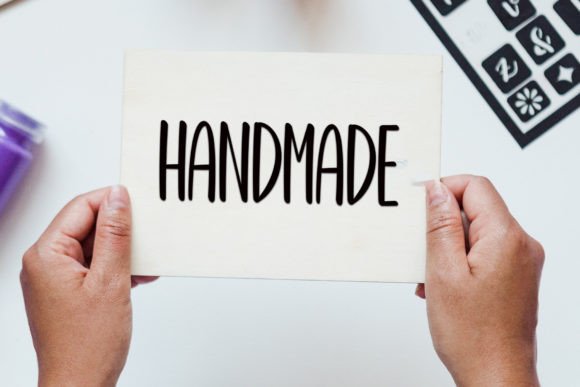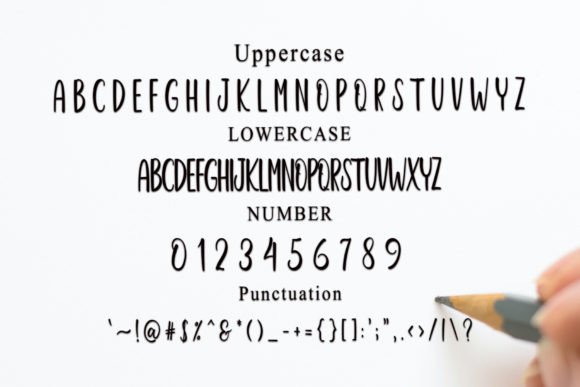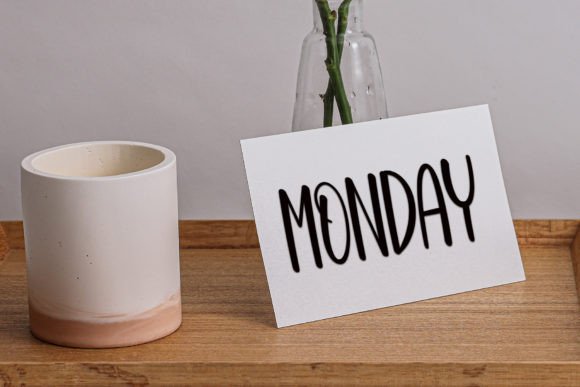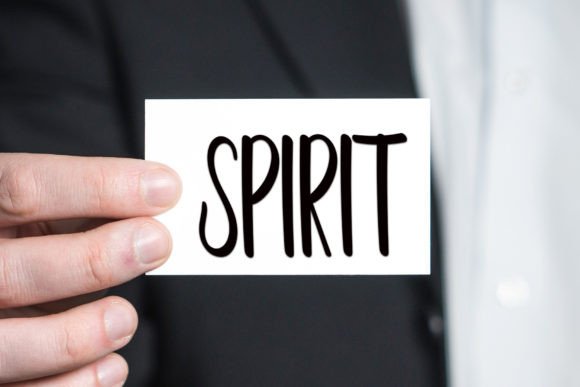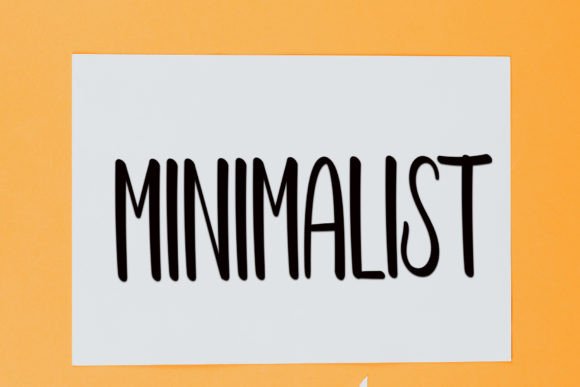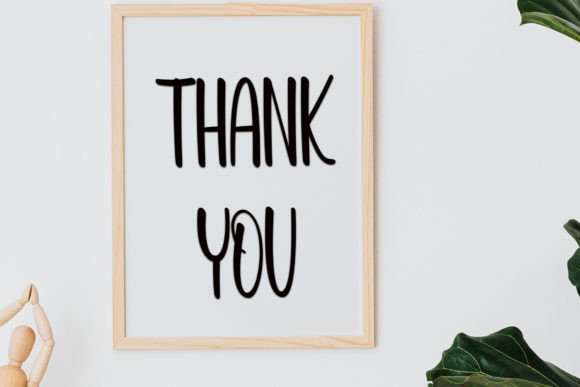
The Ultimate Creative Planner Font Guide: Elevate Your Designs with a Cool, Simple, and Playful Handwritten Font
I’ll never forget the moment I stumbled upon the Creative Planner font. I was working on a project for a client who wanted a playful yet sophisticated look, and I was struggling to find the perfect font. That’s when I discovered Creative Planner – a cool, simple, and playful handwritten font that instantly elevated my design to the next level. In this article, I’ll share my experience with this incredible font, its features, and how to make the most of it in your designs.
An Honest Review of Creative Planner Font
What I Love About Creative Planner Font ✨
- ✅ Versatility: This font is incredibly versatile and fits a wide pool of designs, from playful crafts to sophisticated branding projects.
- ✅ Readability: The font is easy to read, even in small sizes, making it perfect for body text or headings.
- ✅ Unique Character: The font has a unique character that sets it apart from other handwritten fonts, making your designs stand out.
- ✅ Easy to Pair: Creative Planner font pairs well with a variety of fonts, making it easy to find a matching font for your design.
- ⚠️ Limited Formality: While the font is versatile, it’s not suitable for formal or corporate designs that require a more traditional look.
- ⚠️ Glyph Limitations: Some users may find the glyph options limited, but this can be overcome by using OpenType features.
The Backstory of Creative Planner Font
Creative Planner font was designed with the intention of creating a simple, yet playful handwritten font that could be used for a wide range of creative projects. The designer wanted to create a font that was easy to read, yet had a unique character that would make it stand out from other fonts. The result is a font that is both versatile and elegant, perfect for designers, crafters, and creative hobbyists.
| Font Name | Creative Planner Font |
| Author | K_IN Studio |
Q: What is the Creative Planner font best used for?
A: The Creative Planner font is best used for creative projects that require a playful yet sophisticated look, such as branding, packaging, and crafts.
Q: Is the Creative Planner font suitable for body text?
A: Yes, the Creative Planner font is suitable for body text, as it is easy to read even in small sizes.